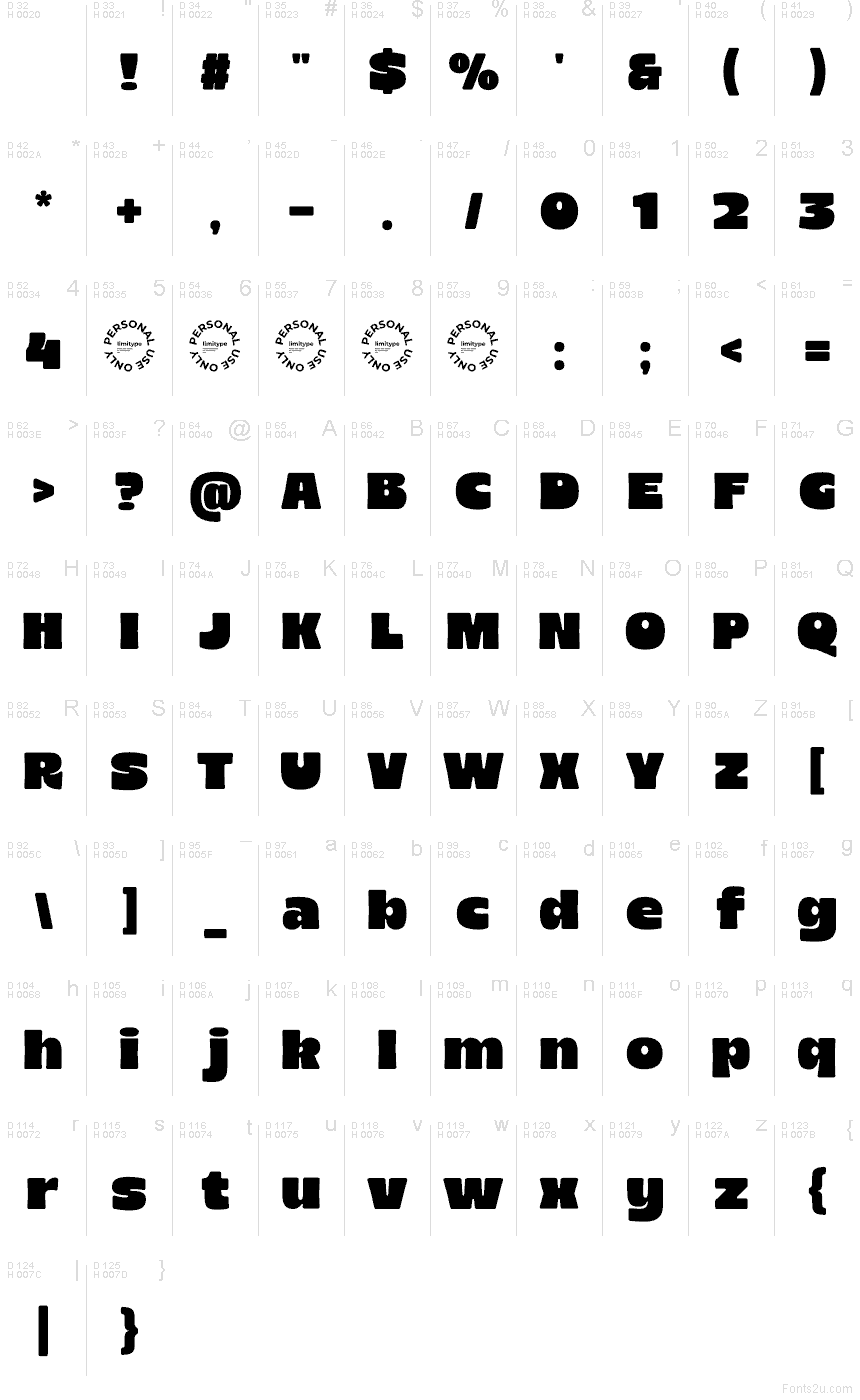
Rotio Demo
Rotio font by Limitype is a free groovy display typeface that looks like it’s been sculpted out of soft, inky bubbles. Its chunky, pillowy letters press right up against each other, creating a bold, almost squishy texture that pulls the eye in. The rounded shapes and generous curves feel friendly and loud at the same time, giving your words the weight of a shout with the charm of a smile.
Using Rotio, your titles and logos won’t just be seen—they’ll be remembered. This free font shines on retro posters, playful packaging, bold social graphics, music or event branding, and youth-focused campaigns that need personality more than polish. It also works beautifully for merch, stickers, and bold website hero text. Pair Rotio with a clean, narrow sans serif in small sizes to keep everything readable while letting the groovy forms handle the spotlight.